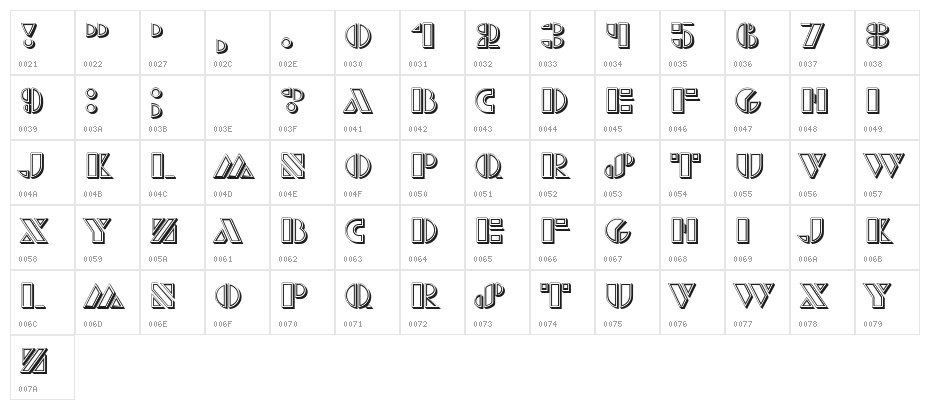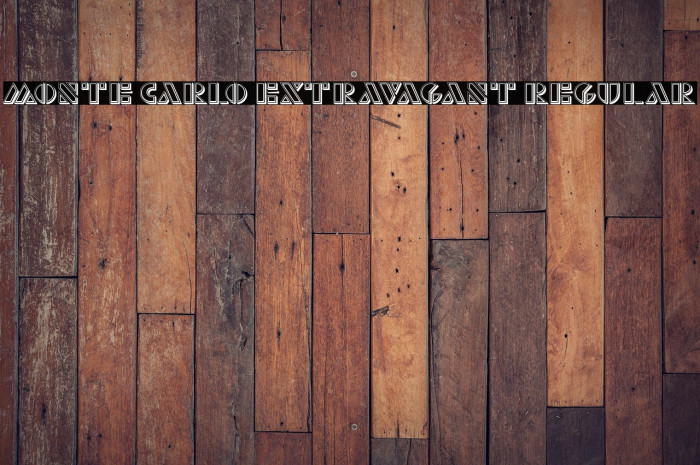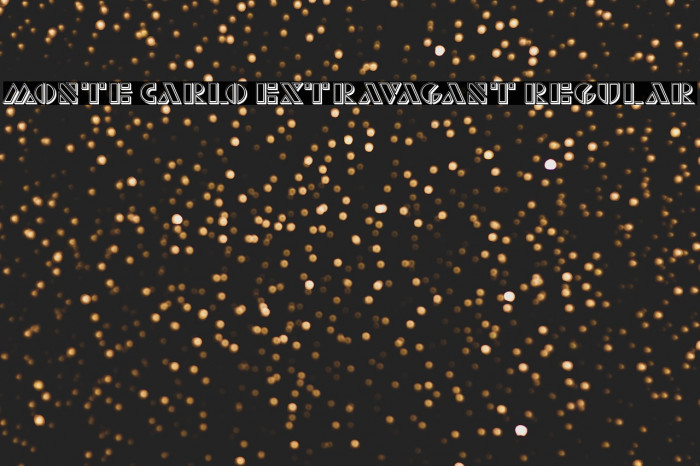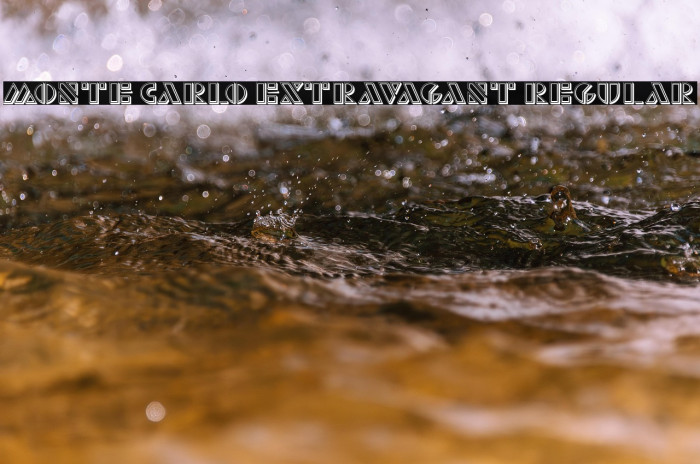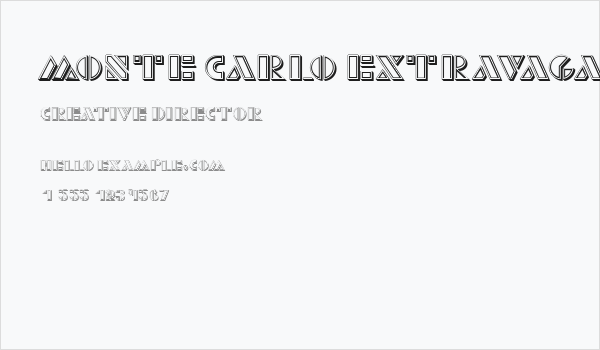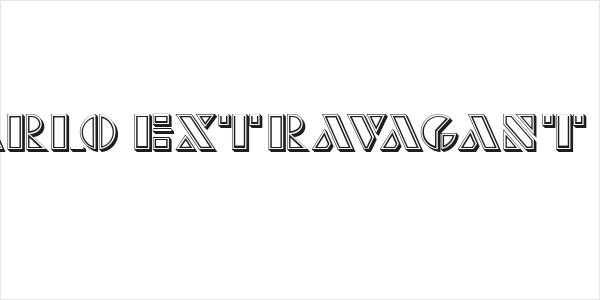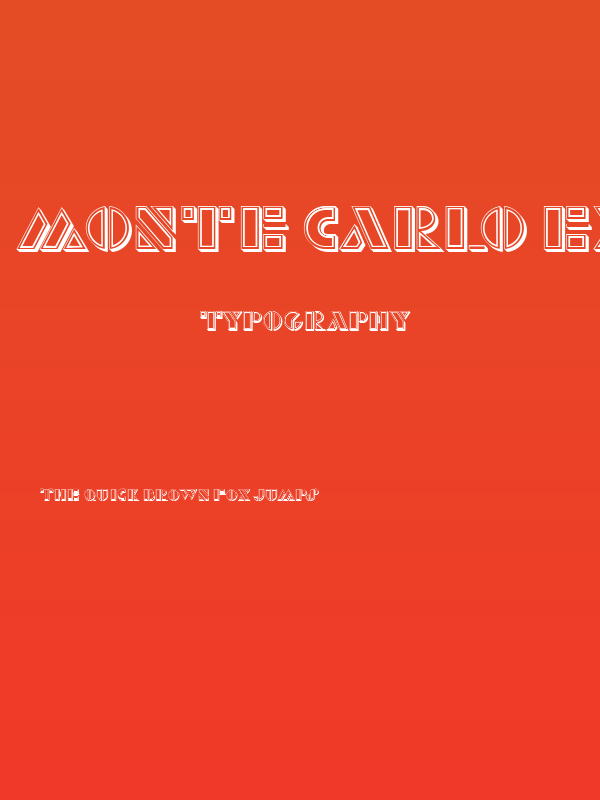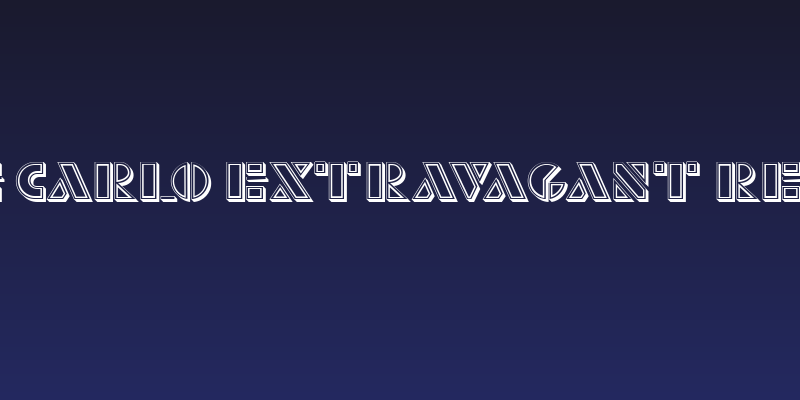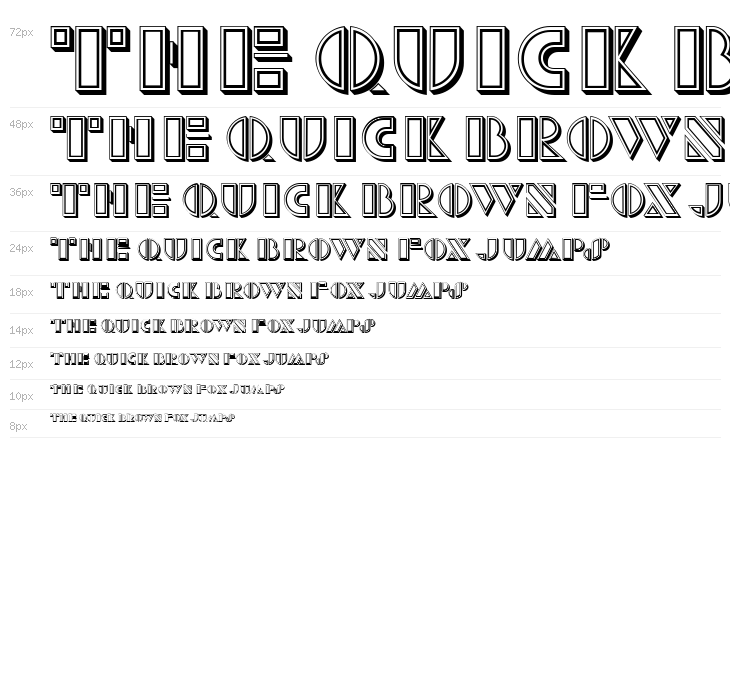
Monte Carlo Extravagant Regular Font
Monte Carlo Extravagant Regular Description
This font features a bold and decorative style with a unique geometric flair. Each character is crafted with a combination of solid and outlined elements, creating a striking visual effect. The uppercase and lowercase letters maintain a consistent design, emphasizing angular and circular shapes. Numbers and special characters follow the same design principles, ensuring uniformity across the font. The overall appearance is both modern and extravagant, making it ideal for eye-catching designs.
| Overall Style | Modern, Extravagant |
| Proposed Projects | Ideal for branding, poster design, event invitations, and any project requiring a bold, eye-catching typeface. |